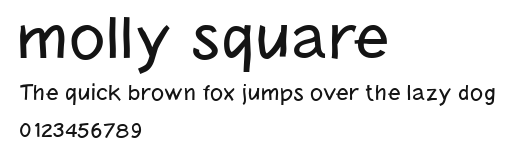
• Font Name: molly square
• Full Font Name: molly square Normal
• PostScript Name: MollysquareNormal
About molly square.ttf
molly square.ttf is a modern, elegant sans-serif font designed for ultimate readability and visual harmony. Perfect for branding, headlines, web design, and print materials.